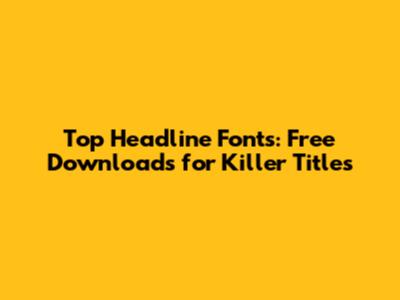
- Google Fonts: This is probably the most well-known and widely used resource for free fonts. Google Fonts offers a huge library of high-quality fonts that are completely free for commercial use. The fonts are easy to browse, filter, and download, and they work seamlessly with web design. Plus, Google Fonts provides helpful information about each font, including its designer, usage examples, and font pairings.
- Font Squirrel: Font Squirrel is another fantastic resource for free fonts. What sets Font Squirrel apart is its focus on 100% free-for-commercial-use fonts. This means you don't have to worry about licensing issues or restrictions. Font Squirrel also offers a handy font identifier tool that can help you identify fonts from images.
- DaFont: DaFont is a popular website with a massive collection of fonts, including many that are free for personal use. While not all fonts on DaFont are free for commercial use, the site makes it easy to filter by license type. Just be sure to double-check the licensing terms before using a font for commercial projects.
- Creative Market (Free Goods): Creative Market is a marketplace for design assets, but they also offer a selection of free goods every week, including fonts. These free fonts are typically high-quality and come with commercial licenses, making them a great option for professional projects. Keep an eye on their free goods section to snag some amazing deals.
- Behance and Dribbble: These are social platforms for designers, and many designers share free fonts as a way to showcase their work. You can often find unique and creative fonts that you won't find anywhere else. Just be sure to check the licensing terms before using a font for commercial projects.
- Oswald: Oswald is a classic sans-serif font that's widely used for headlines. It has a slightly condensed design that makes it perfect for fitting more text into a limited space. Oswald is clean, legible, and versatile, making it a great choice for a variety of projects.
- Montserrat: Montserrat is a geometric sans-serif font that exudes modernity and sophistication. It's highly legible and comes in a variety of weights, making it suitable for both headlines and body text. Montserrat is a popular choice for websites, logos, and branding materials.
- Roboto: Roboto is a widely used sans-serif font that's known for its clean lines and excellent readability. It's a great choice for headlines that need to be clear and easy to read at a glance. Roboto is available in a variety of weights and styles, making it a versatile option for different design projects.
- Lato: Lato is a humanist sans-serif font that combines warmth and readability. It has a slightly rounded design that makes it feel friendly and approachable. Lato is a great choice for headlines that need to convey a sense of trust and credibility.
- Playfair Display: Playfair Display is a classic serif font that exudes elegance and sophistication. It has a high contrast design that makes it perfect for headlines and titles. Playfair Display is a great choice for projects that need to convey a sense of luxury and refinement.
- Merriweather: Merriweather is a highly readable serif font that's designed specifically for on-screen reading. It has a slightly condensed design that makes it perfect for fitting more text into a limited space. Merriweather is a great choice for headlines that need to be clear and legible, even on small screens.
- Lora: Lora is a well-balanced serif font with roots in calligraphy. It has a contemporary feel, making it versatile enough for both online and print projects. Lora is especially suited for headlines and body text where readability is paramount, thanks to its distinct serifs that guide the eye.
- Arvo: Arvo is a geometric slab-serif font that's both modern and approachable. Its sturdy design makes it ideal for headlines, while its legibility ensures it works well in smaller text sizes too. Arvo is a great choice for projects that need a touch of personality and character.
- Bebas Neue: Bebas Neue is a popular sans-serif font that's known for its tall, narrow design. It's a great choice for headlines that need to make a statement. Bebas Neue is a versatile font that can be used in a variety of design projects.
- Ostrich Sans Rounded: Ostrich Sans Rounded is a modern sans-serif font with rounded terminals. It has a friendly and approachable feel that makes it perfect for headlines and titles. Ostrich Sans Rounded is a great choice for projects that need to convey a sense of warmth and positivity.
- Raleway: Raleway is an elegant sans-serif font that's available in a wide range of weights and styles. It's a versatile font that can be used for both headlines and body text. Raleway is a great choice for projects that need to convey a sense of sophistication and professionalism.
- Consider your brand: Your headline font should align with your brand's personality and values. If your brand is modern and minimalist, a clean sans-serif font might be a good choice. If your brand is traditional and elegant, a classic serif font might be more appropriate.